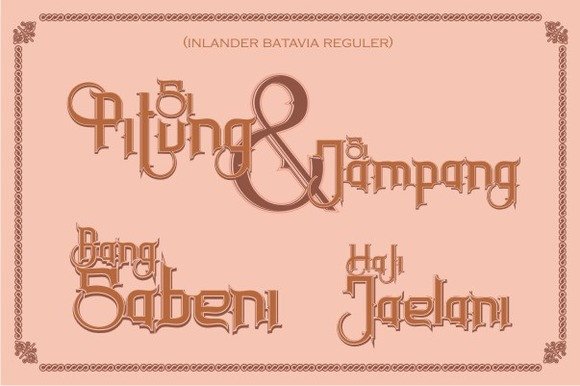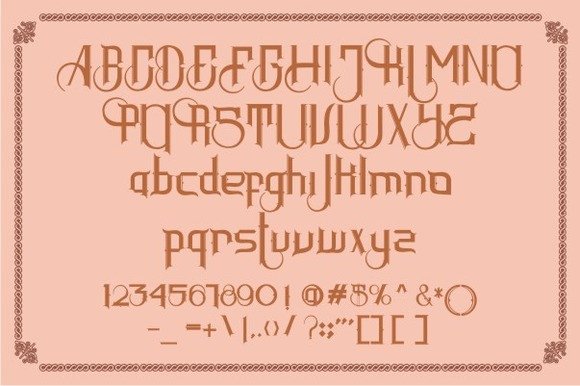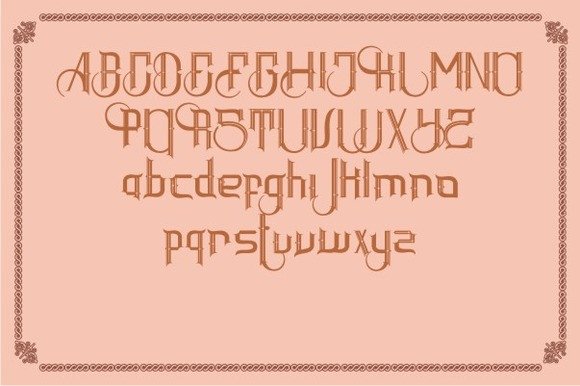
Introduction to Inlander Batavia Font
Inlander Batavia is an oldskool typeface.
Inspired by the history & culture of Batavia (now Jakarta) It can be used for various purposes such as headings, logos, invitations, t-shirt designs, greeting cards, posters, labels, book covers, brochures, and much more.